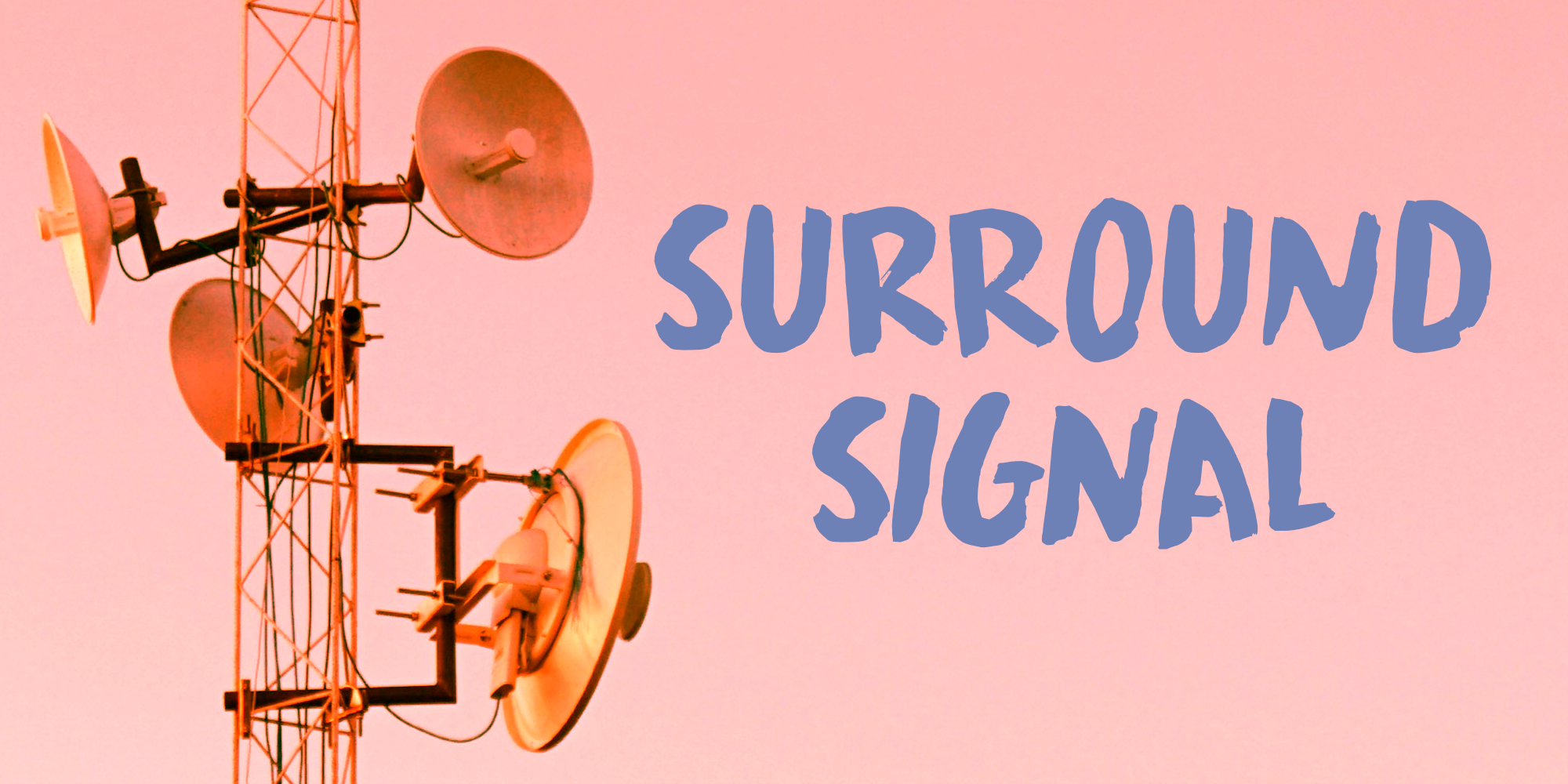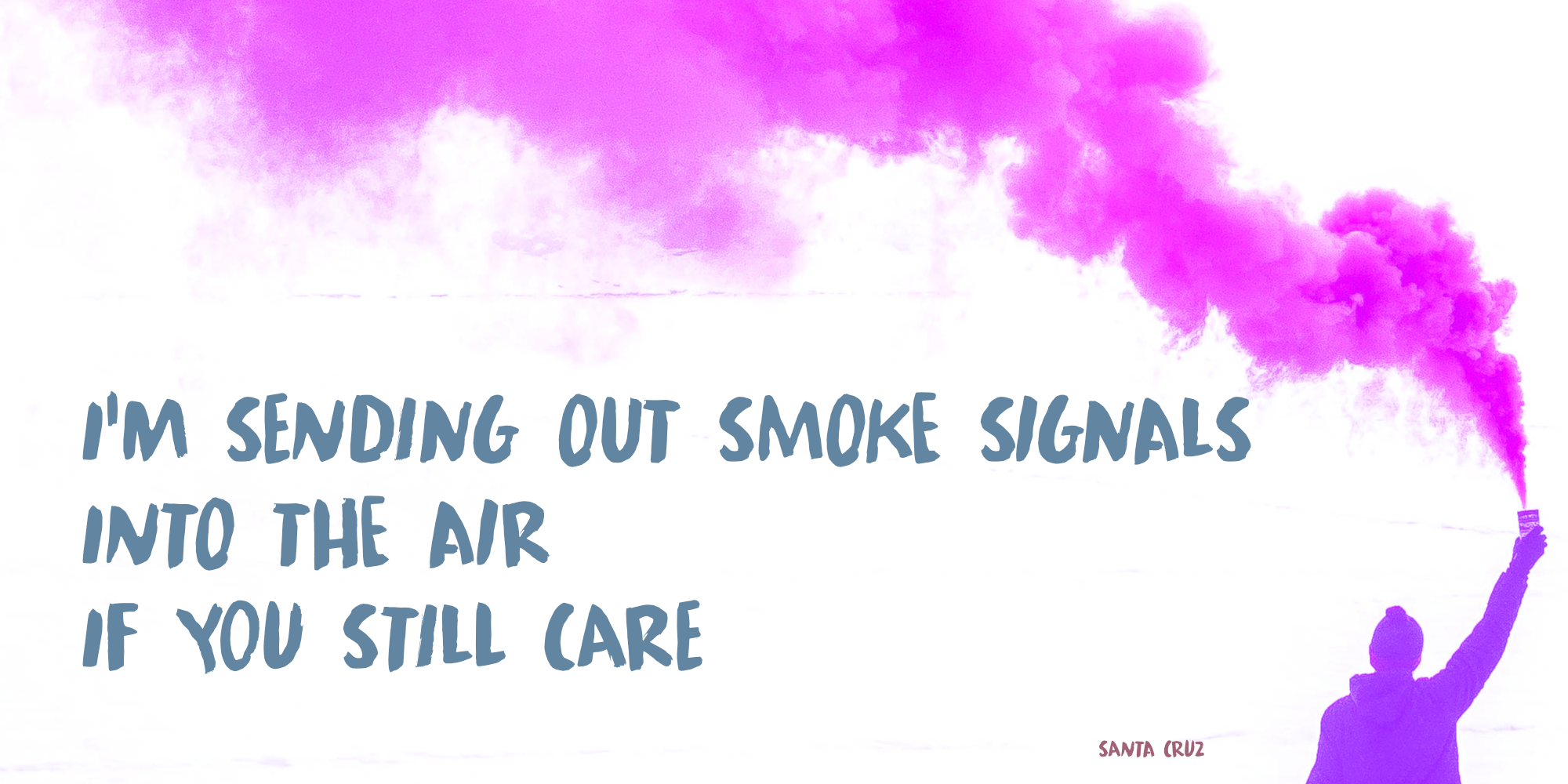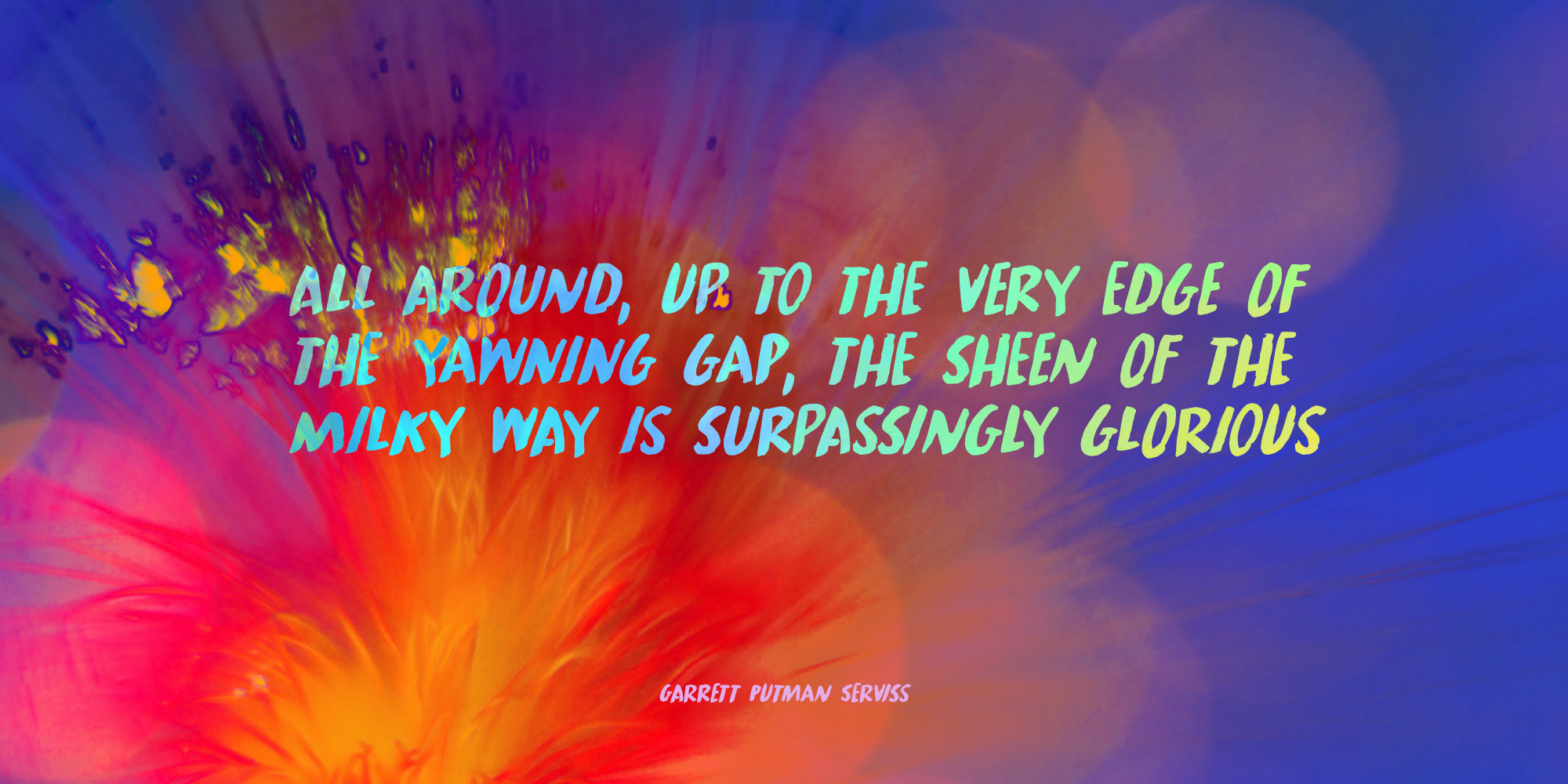
Surround Signal (2 fonts)
Surround Signal is a beautiful handmade brush font (yes, yes, using my Chinese ink…). It comes with extensive language support and a set of alternates for the lower case glyphs.